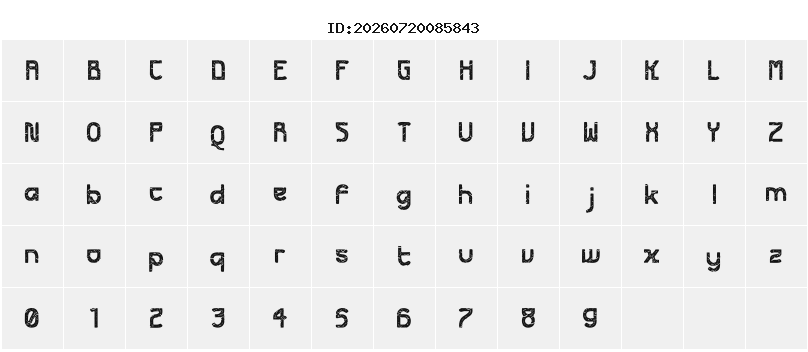
Futurex Apocalypse Preview
• Font Name: Futurex Apocalypse
• Font ID: S.JohnRoss: Futurex Apocalypse: 2001
• Full Font Name: Futurex Apocalypse
• PostScript Name: FuturexApocalypse
About Futurex Apocalypse.ttf
Futurex Apocalypse.ttf is a modern, elegant sans-serif font designed for ultimate readability and visual harmony. Perfect for branding, headlines, web design, and print materials.